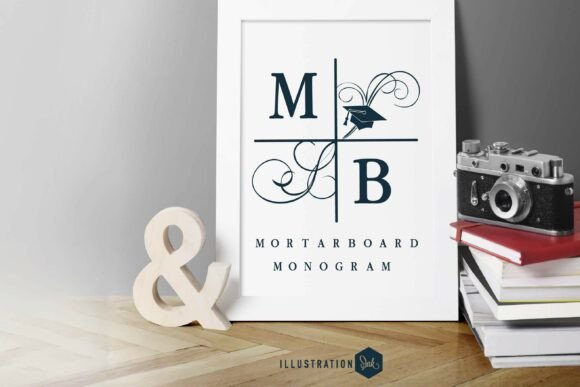
Mortarboard Monogram: Elegance for Academic Milestones
Finding the right premium font for academic celebrations often feels like searching for a needle in a haystack. Many decorative typefaces lean too heavily on novelty, sacrificing the structural integrity required for timeless keepsakes. However, the Mortarboard Monogram Family breaks this mold. It is not merely a collection of letters; it is a carefully engineered design system that blends the gravity of achievement with the grace of fine stationery. For designers and creators working in the educational niche, this creative font offers a sophisticated solution that respects the importance of the milestone it represents.
The Anatomy of a Structured Serif
What sets the Mortarboard Monogram apart from standard script fonts or handwritten fonts is its unique architectural approach. Instead of a traditional horizontal split, which can sometimes make initials feel disjointed, this typeface utilizes a four-quadrant cross layout. This grid system provides a balanced, symmetrical foundation that feels instantly professional. The underlying structure is a sturdy serif font, giving the letters a classic, readable authority that commands respect.
The magic lies in the details within the quadrants. The design features a beautifully detailed graduation mortarboard cap integrated seamlessly into the upper-right section. This is not a clumsy clip-art overlay but a typographic illustration that flows with the letterform. Complementing this academic symbol, the lower-left section hosts flowing, symmetrical calligraphic swirls. These swirls add a touch of warmth and celebration, softening the rigidity of the serif structure without compromising readability. This combination creates a display font personality that is both formal and festive—exactly what graduation announcements require.
Practical Applications for Creators and Sellers
For those running a business in the print-on-demand space or offering digital design assets, versatility is key. The Mortarboard Monogram Family excels in niche applications where standard modern typography often falls flat. It is the ideal choice for creating high-end personalized home decor, such as custom pillows or wall art featuring a graduate's initials. Because the design is self-contained within the quadrant grid, it scales beautifully onto various substrates.
Consider the application in physical goods like engraved achievement awards or varsity announcement cards. The serif font base ensures that the text remains legible even when etched into metal or wood, a common struggle with overly intricate script fonts. Furthermore, for packaging design related to graduation party favors, this font adds an instant layer of perceived value. It transforms a simple gift tag into a commemorative memento. It is also highly effective for social media graphics where schools or tutoring centers need to announce honors lists with a visual hierarchy that demands attention.
Strategic Font Pairing and Brand Identity
Integrating a specialized decorative monogram typeface into a broader brand identity requires a thoughtful approach to font pairing. Because the Mortarboard Monogram is a heavy display font, it should generally be reserved for headlines, logos, or focal points. It pairs exceptionally well with clean, neutral sans serif fonts. A geometric sans serif for body text creates a pleasing contrast, allowing the intricate details of the monogram to stand out without visual competition.
When working on editorial design for a school yearbook or alumni magazine, use the monogram for pull quotes or section dividers. This creates a strong visual rhythm that guides the reader's eye. For logo design, specifically for tutoring agencies or educational consultants, the font offers a pre-built sense of establishment. It suggests that the business is rooted in tradition and quality. However, creators should always test the font at the intended size. The calligraphic swirls in the lower-left quadrant are best appreciated at larger scales; at very small sizes, they may lose definition, impacting the overall readability and aesthetic.
Evaluating Fit and Commercial Use
Before committing to this typeface for a client project, it is wise to evaluate the specific mood of the design. If the project requires a "fun" or "playful" vibe, a handwritten font might be more appropriate. The Mortarboard Monogram Family is designed for dignity and elegance. It is perfect for high school graduations, university honors, and professional certifications, but it might feel overly formal for a preschool ceremony.
From a workflow perspective, the font functions as a powerful tool for speed. Instead of manually creating complex layouts in Adobe Illustrator, a designer can simply type the initials and have a perfectly structured emblem ready for print. This efficiency is vital for small business owners managing multiple orders. Always ensure you review the commercial licensing terms provided by the foundry, Illustration Ink, to ensure your usage—whether for physical merchandise or digital downloads—aligns with the license type. By leveraging the unique quadrant structure of the Mortarboard Monogram, you can deliver a product that feels custom-built and significant, honoring the hard work behind every academic achievement.